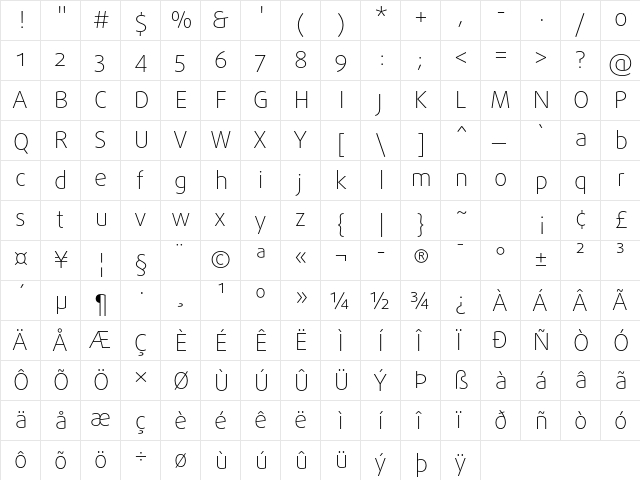
DaxlinePro Thin
| Foundry | FSI Fonts und Software GmbH |
| Designer | Hans Reichel |
Design Context for DaxlinePro Typeface
DaxlinePro takes a measured approach to typography — its balanced proportions and neutral character make it a reliable workhorse for both digital and print work. Its slender proportions lend an understated elegance to any composition.
Pro Tip: Use DaxlinePro in both headline and body roles to test its range before committing to a single application.